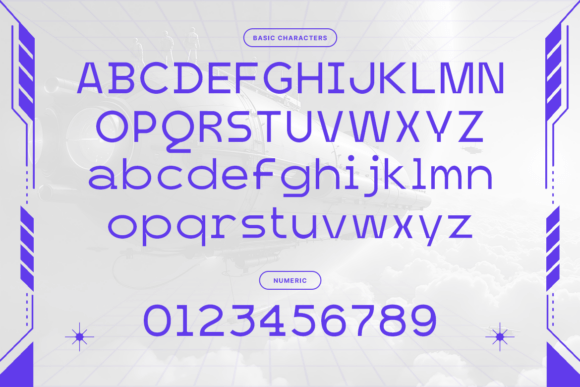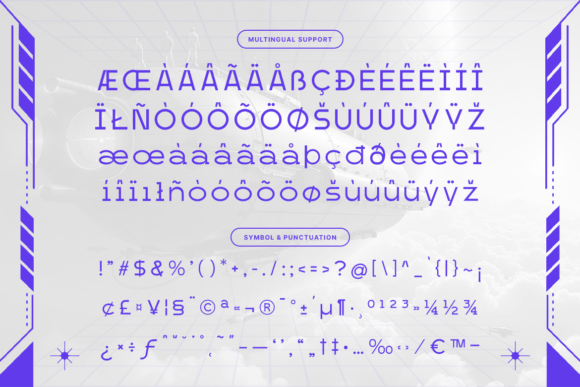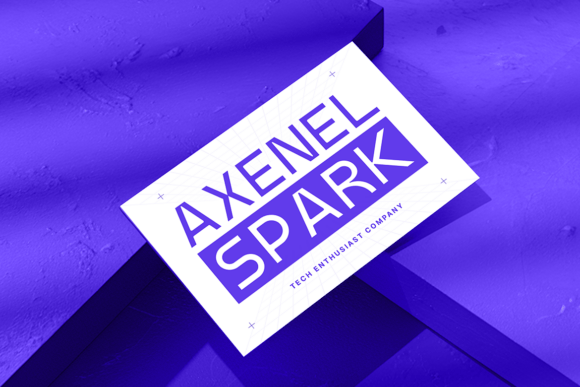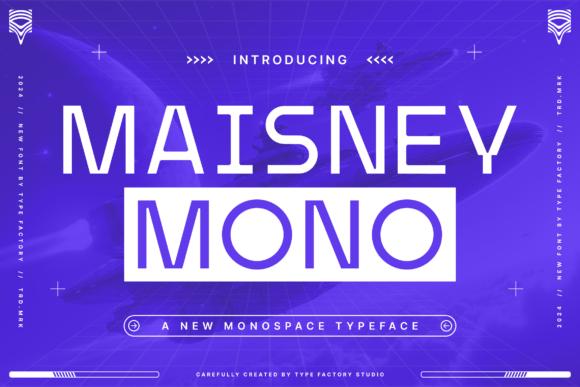
Introduction to Maisney Font
Maisney is a modern monospace sans serif typeface designed with a clean technological structure and balanced character spacing.
Each letterform follows a consistent monospace grid, creating a precise and structured appearance often associated with digital interfaces and coding environments The design combines geometric simplicity with subtle futuristic details, making it suitable for technology-driven visual projects.
Key Features of Maisney Font